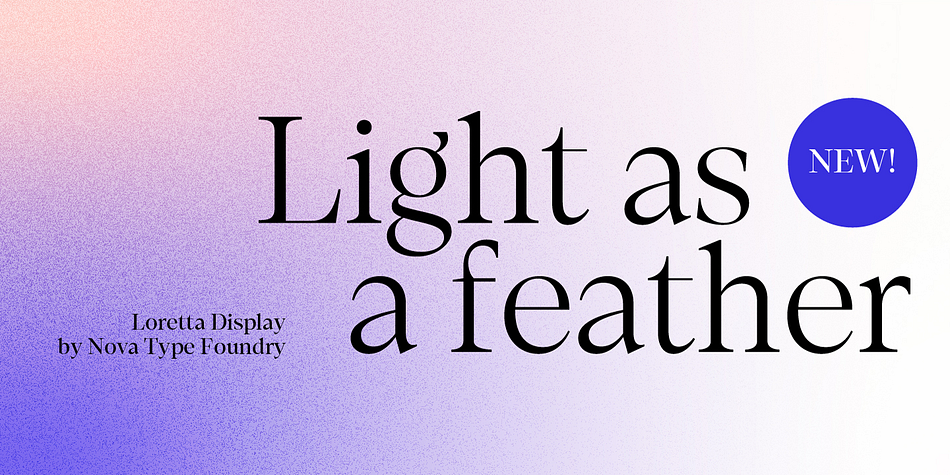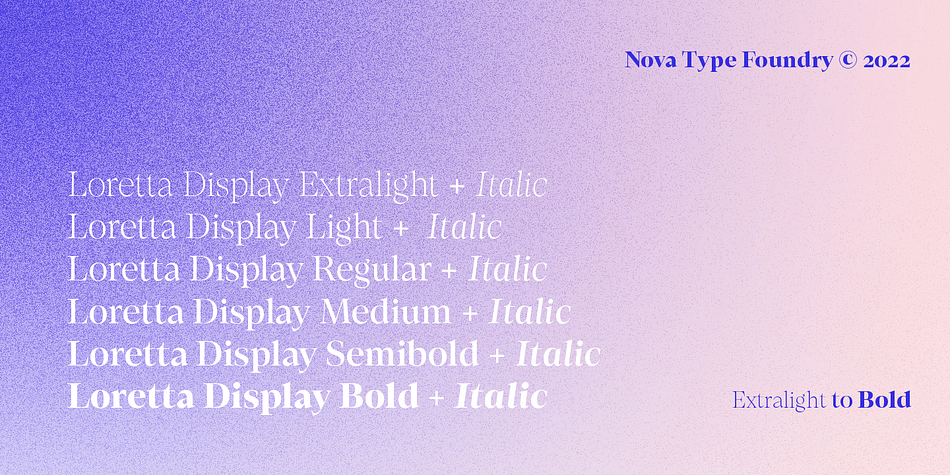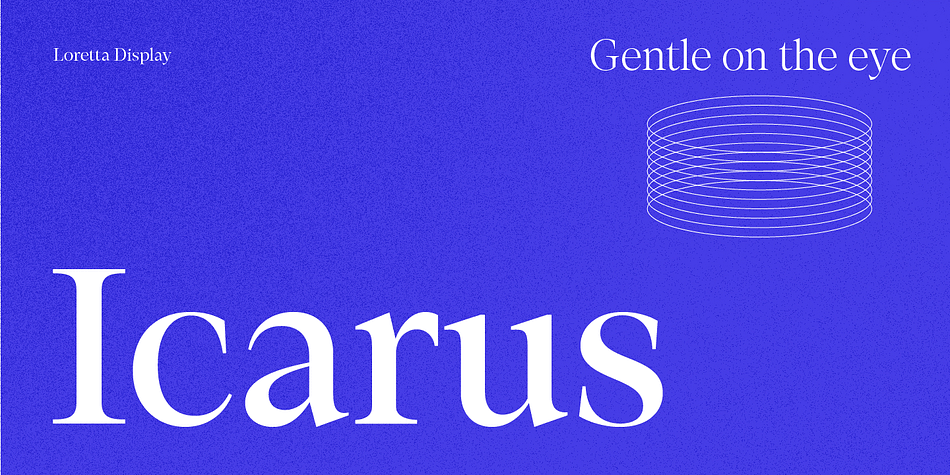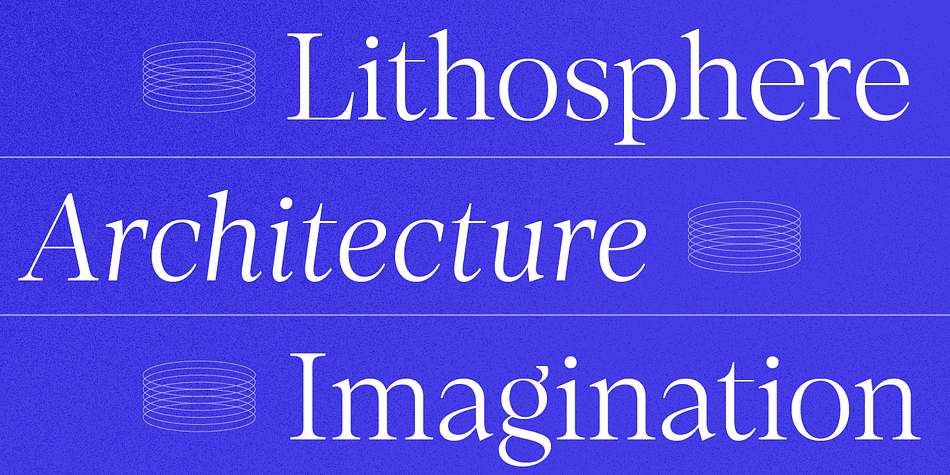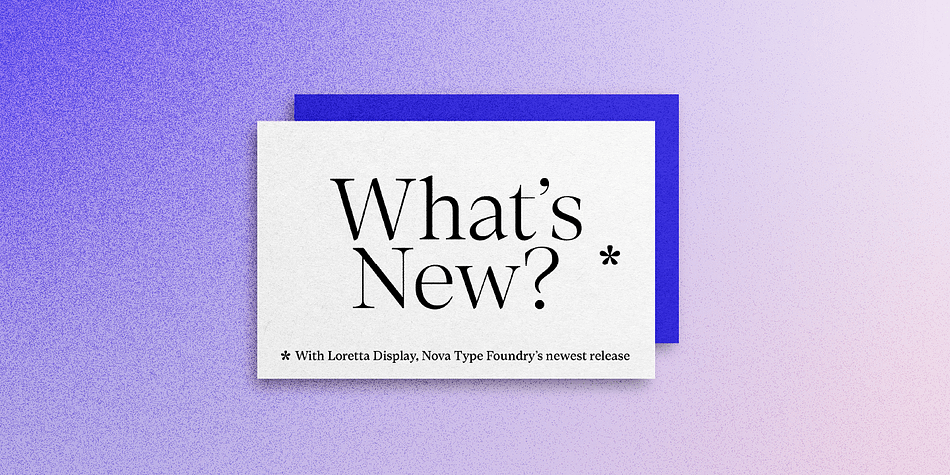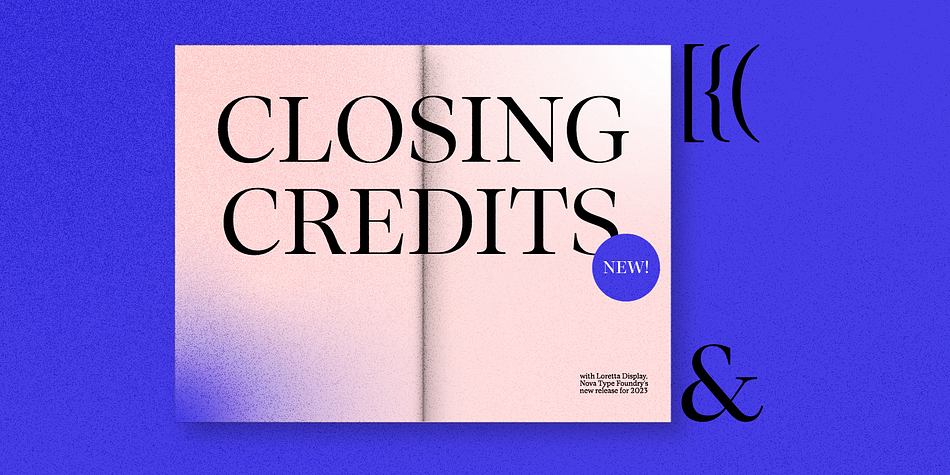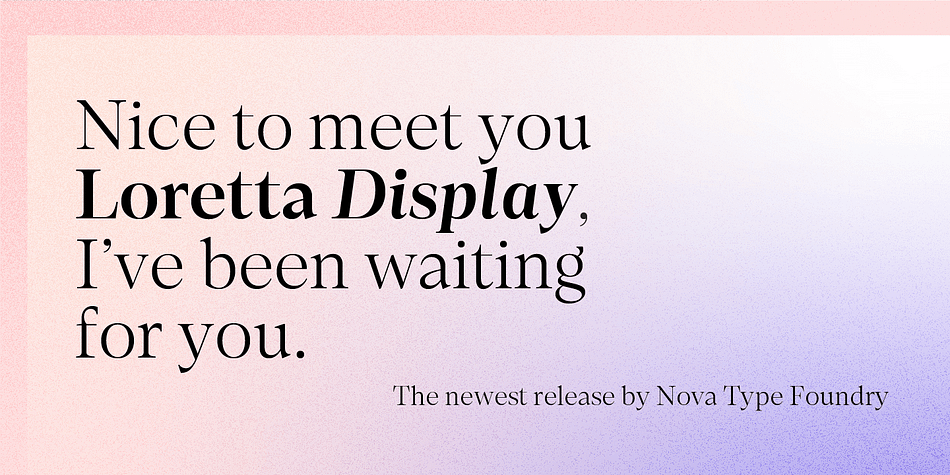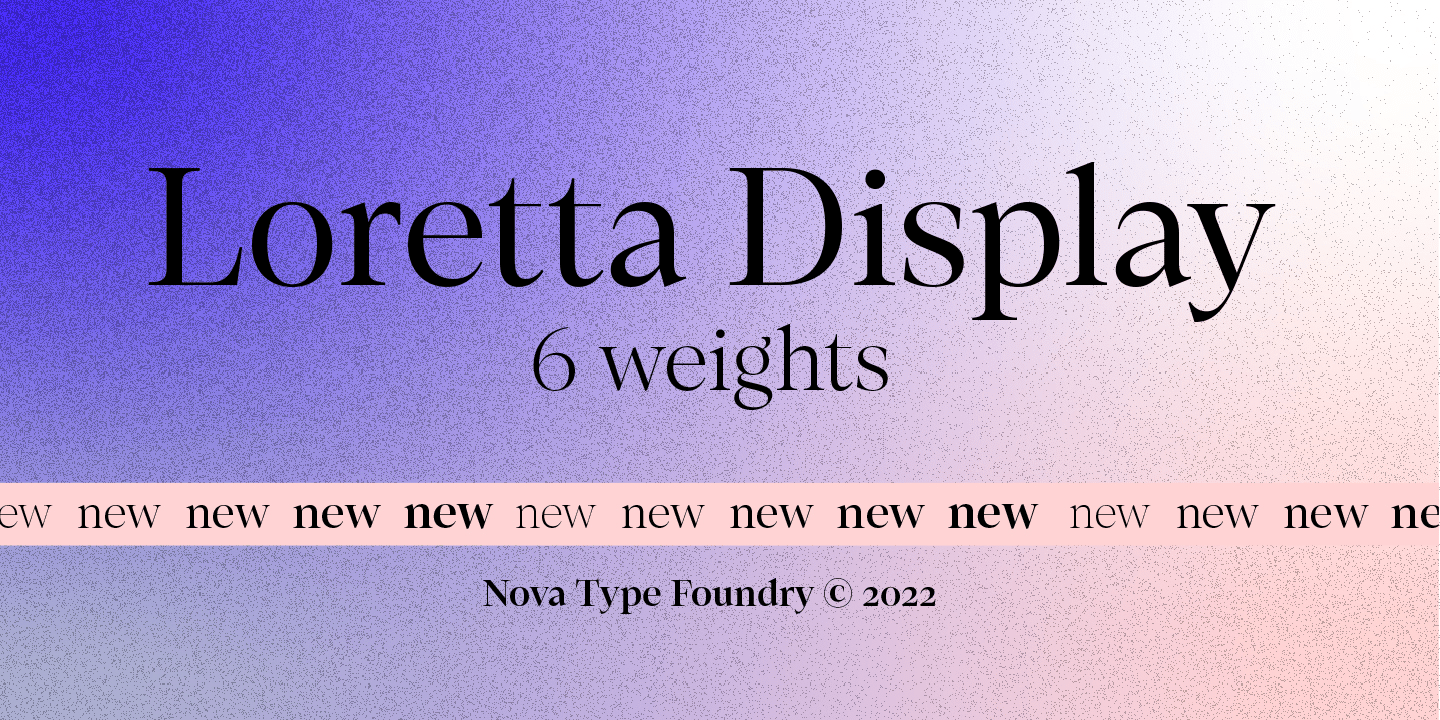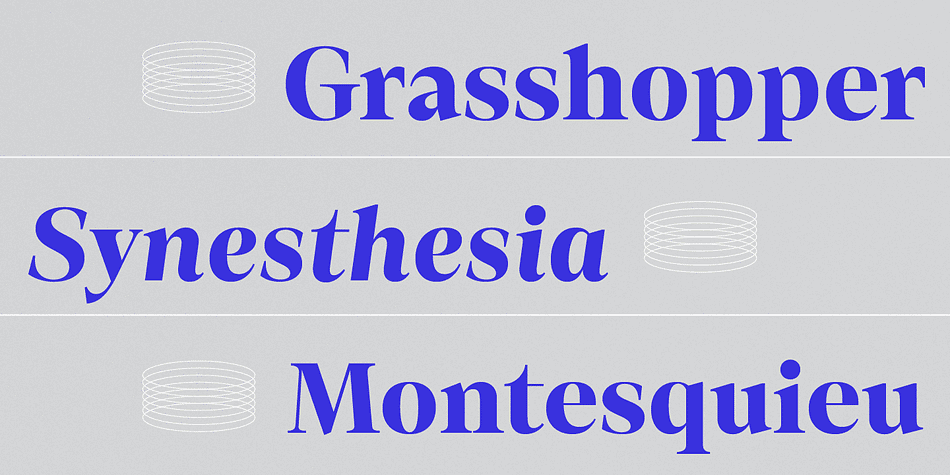
Loretta Display
Designed by Joana Correia and Abel Martins, Loretta Display is a serif font family. This typeface has twelve styles and was published by Nova Type Foundry.
Loretta Display is a version of Loretta designed to bring it to bigger sizes. Loretta Display is elegant and sharp. Expand your universe of editorial typefaces with Loretta Display.